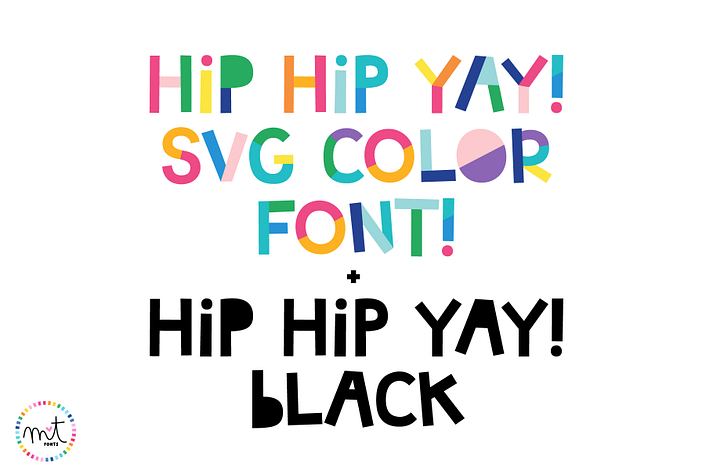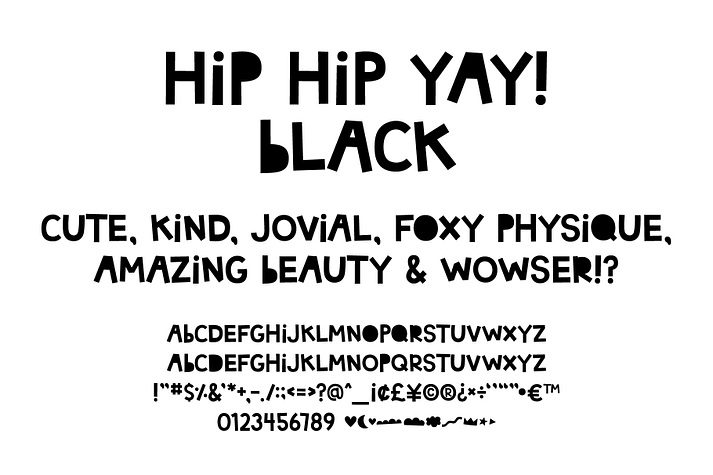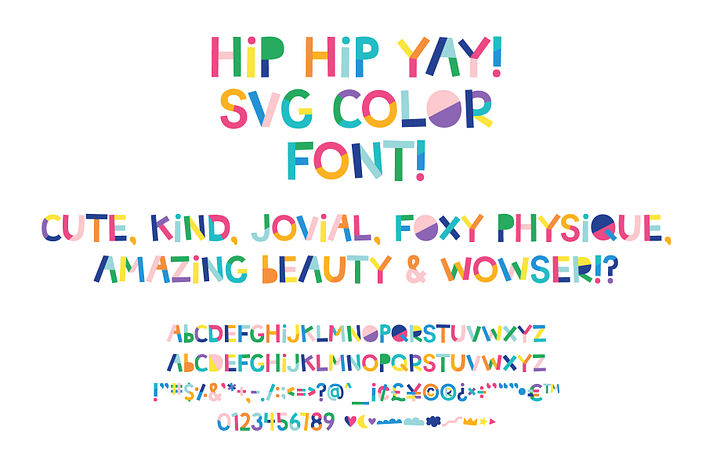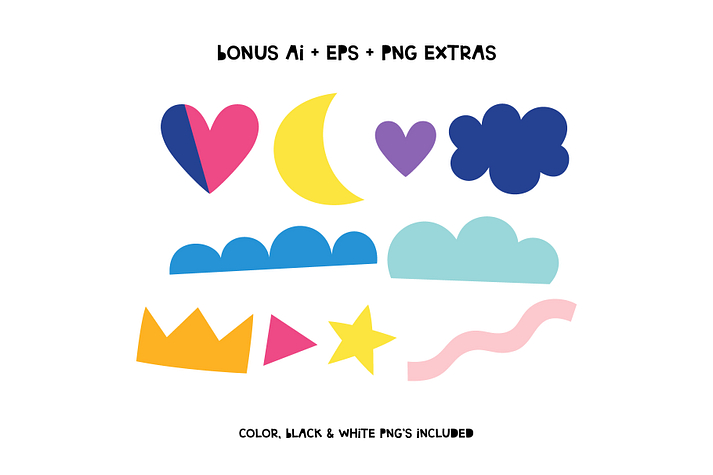
MTF Hip Hip Yay
MTF Hip Hip Yay is a hand display font family. This typeface has two styles and was published by Miss Tiina Fonts .
Hip Hip Yay is a fun and quirky display color font capable of taking any product out of the ordinary! Use it on bold and bright creations such as banners, posters, covers, titles, magazines, etc.